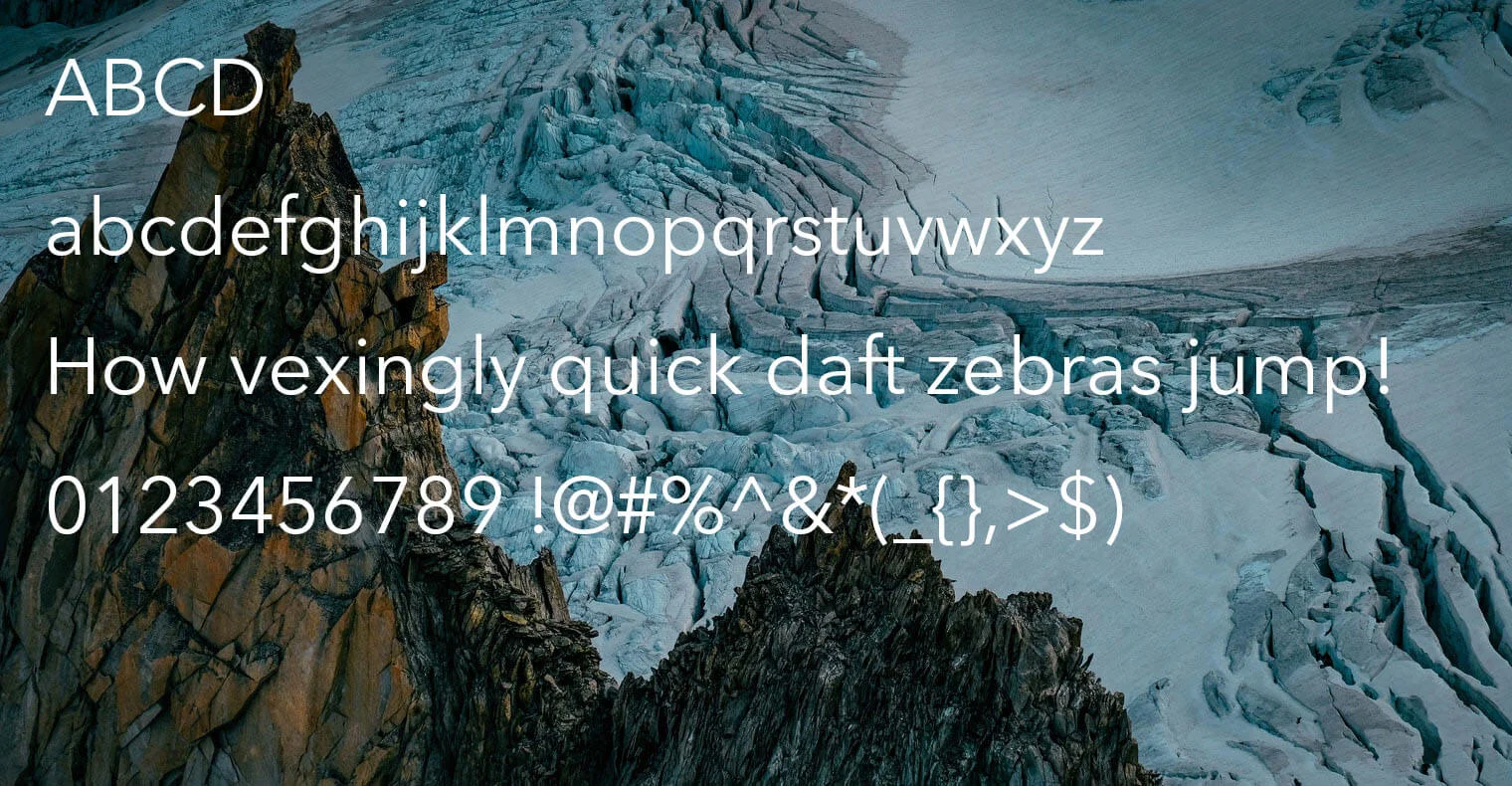
Avenir Next Font is a Sans-serif typeface released in 1988 and goes best for graphic designing work. After its release, it became a primary font for many websites and companies. It instantly got popular for all the right reasons. Many well-known designers used this font in their design, which made it one of their favorite fonts. If you desired to make a combination of two typefaces and want to make a typography design with a mixture of two typefaces then use Viner Hand ITC Font.
The font was made public in 1988 for the first time by a Swiss graphic designer. It was considered one of the good alternatives of one of the highly used fonts avenir next condensed font. Nunito font is another best alternative to Avenir Next. If you are looking for a perfect font for your next graphic design project, Avenir Next would be a suitable choice in this regard.
However, this is not an Adobe font and can’t be inducted by any Adobe software. It comprises many different styles, including Italic, Medium, and Thin.
Usage of Avenir Next Font
As discussed earlier, since the font releases, it instantly grabs everyone’s attention. When it came into being, it carried 6 weights. Its parent font Avenir Font is another highly admired font being used in many notable places. It is used in places where uniqueness requires and would go best for Logo designs, Titles, Headlines, etc.
One of the many reasons for using this font is to give a touch of professionalism to your design. Yes, it makes your website or design look professional because of being a unique typeface. What could be a better reason for giving this font a preference?
Style | Geometric sans-serif, Humanist sans-serif |
Designer | Adrian Frutiger |
What font is closest to Avenir Next?
It is a Sans-Serif typeface that was specially originated to be the best pairing with Futura Font. However, if we talk about the closest one, the Nunito font would go best. Nunito font is the best free alternative of Avenir Next.
Where Can Anevir Font Be Used?
It is the best choice for places where you want to give a professional touch. Futrtremoire, this font is considered one of the best fonts for graphic design. Various notable websites and companies have used this font since its release.
Is Avenir a Good Font?
It is one of the most versatile typefaces than other Sans-serif fonts and brings uniqueness in design. It is always wise to use this font in your work. To give an outline in any project, this font will be a great option.
When Is Avenir Next Created?
It was created in 1988.